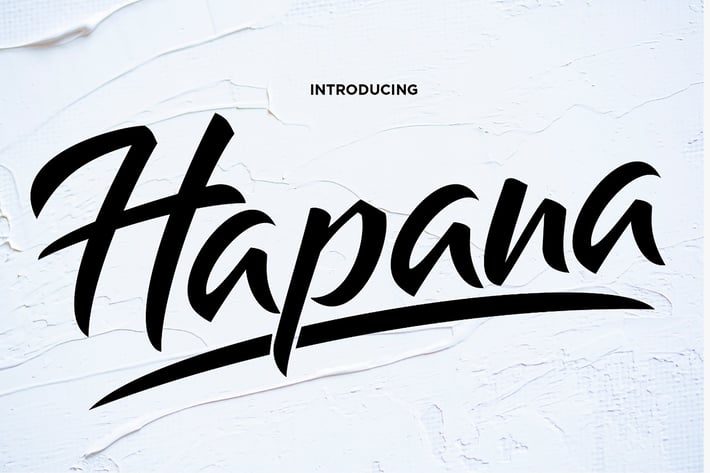
Hapana - Authentic Display Font
Hapana is perfect to use for Logotype, Letterhead, Poster, Apparel Design, Label and etc.
The alternative characters were divided into several features such as Stylistic Alternates and Ligature.